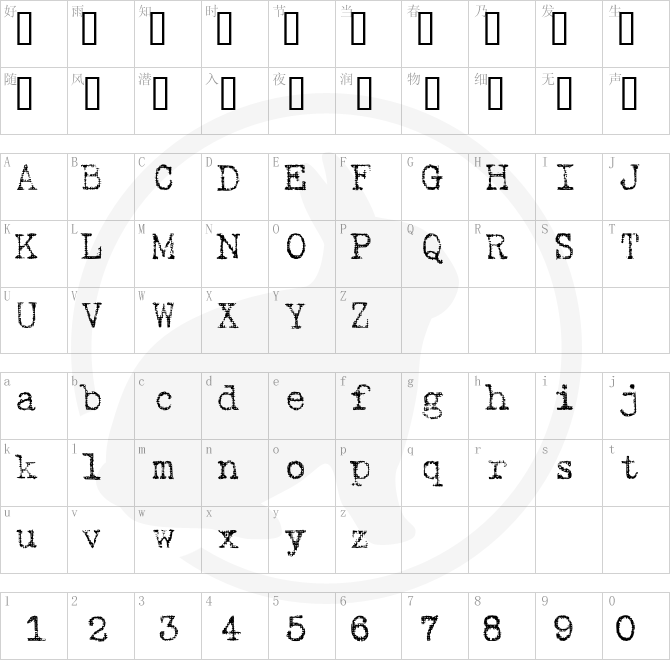
- Font Name:Gabriele Light Ribbon FG
- Subfamily:Fontgrube: Gabriele Light Ribbon
- Full Name:Gabriele Light Ribbon FG Regular
- PostScript:GabrieleLightRibbonFG
- Copyright:based on D. Rakowski's "Harting" font
Gabriele-Light-Ribbon-FG-Regular.ttf is a very beautiful artistic font, Gabriele-Light-Ribbon-FG-Regular.ttf is widely used in the design and printing of various books and pictures,Gabriele-Light-Ribbon-FG-Regular.ttf has a strong visual impact,Gabriele-Light-Ribbon-FG-Regular.ttf is a commonly used font in newspapers, magazines and books, and is used in posters, e-commerce Poster design, store design, logo design, font design and other fields.Gabriele-Light-Ribbon-FG-Regular.